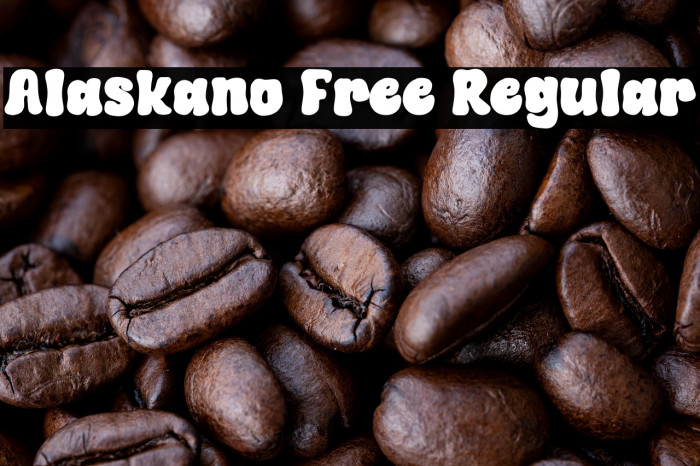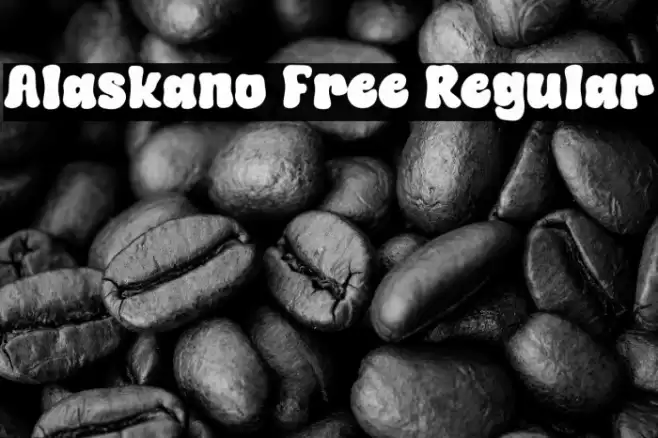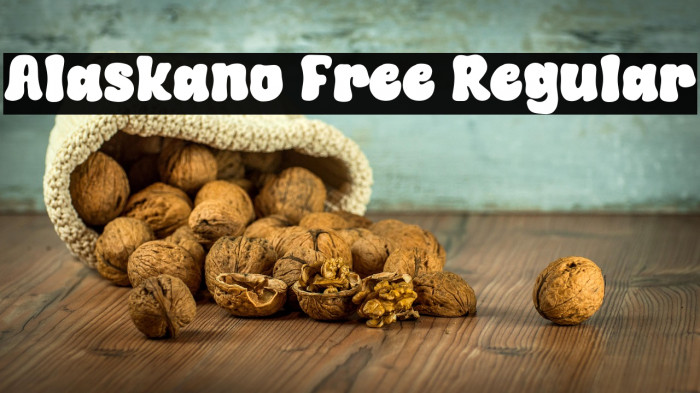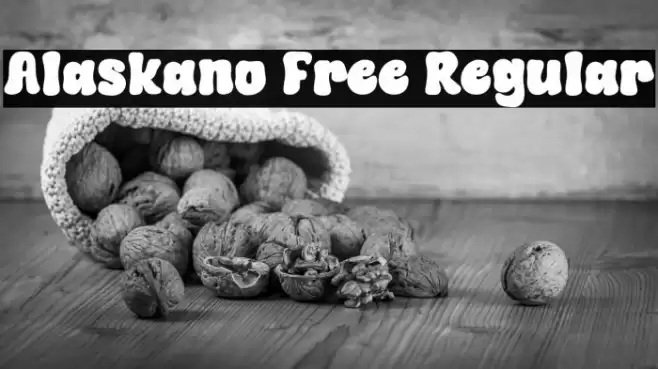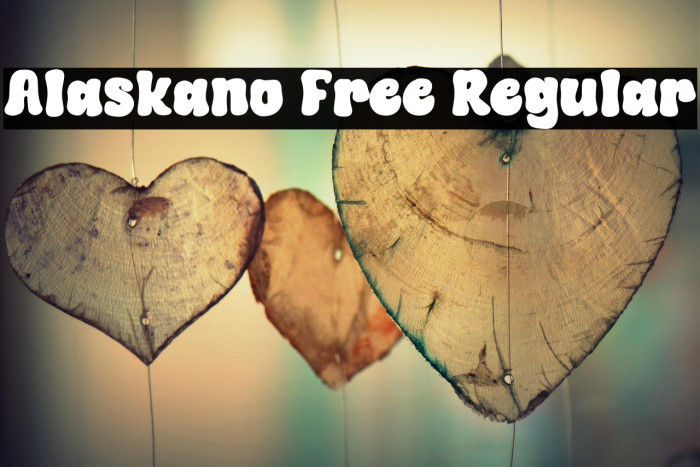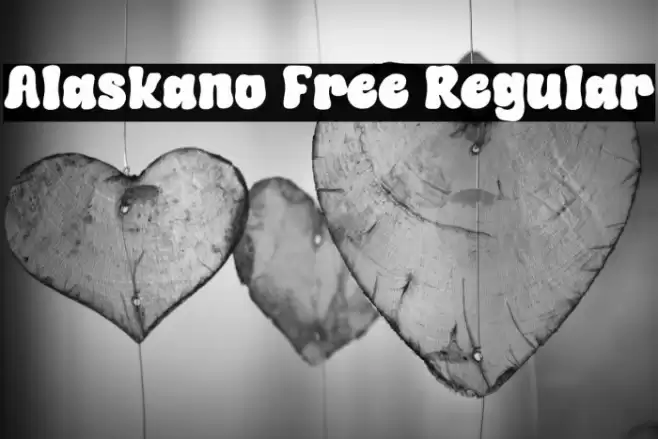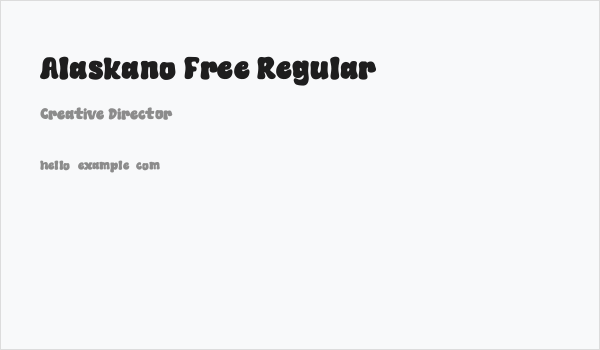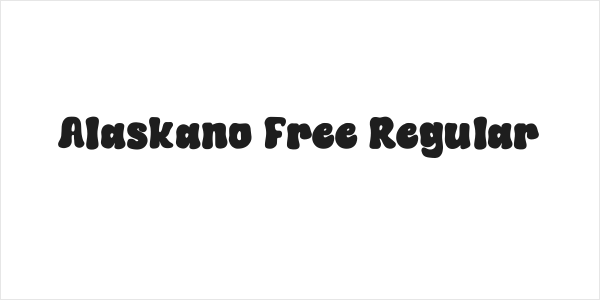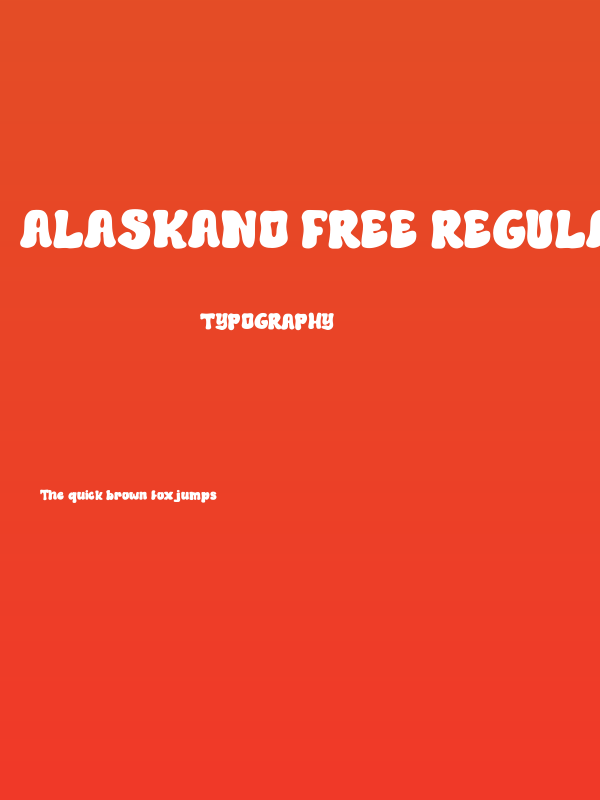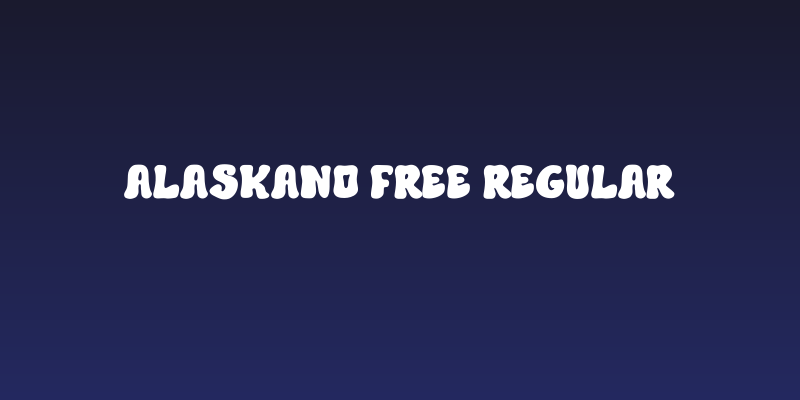
Alaskano Free Regular Font
Alaskano Free Regular Description
This font features a bold and playful design with rounded, thick strokes that give it a bubbly and friendly appearance. The characters are well-spaced, ensuring readability while maintaining a whimsical style. The uppercase and lowercase letters are consistent in their rounded forms, creating a cohesive look across the alphabet. The numbers and special characters follow the same design principles, making them easily recognizable and harmonious with the rest of the font. This style is ideal for projects that require a fun and approachable aesthetic.
| Proposed Projects | Ideal for children's books, playful branding, party invitations, and casual posters. |